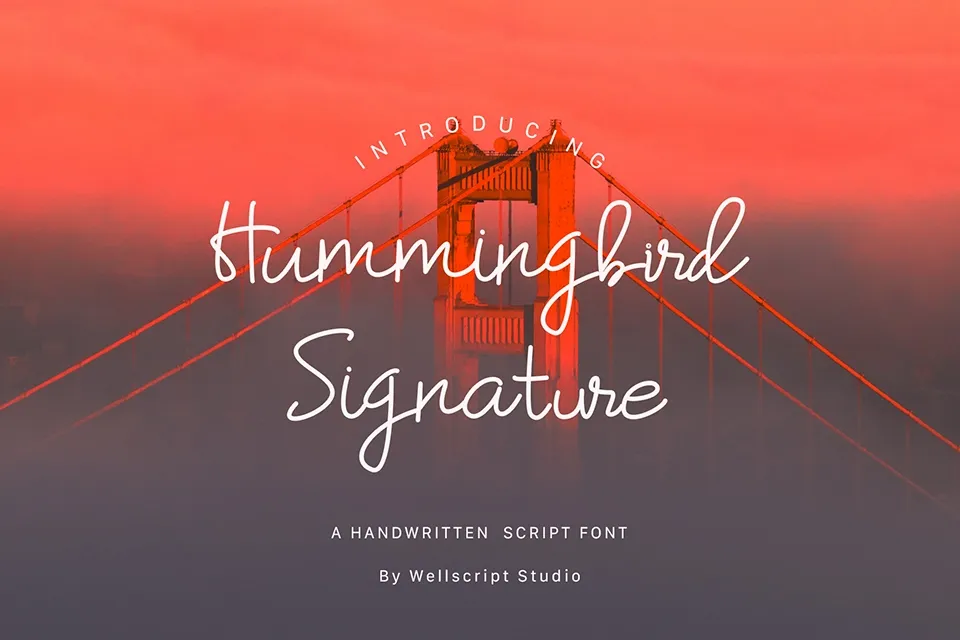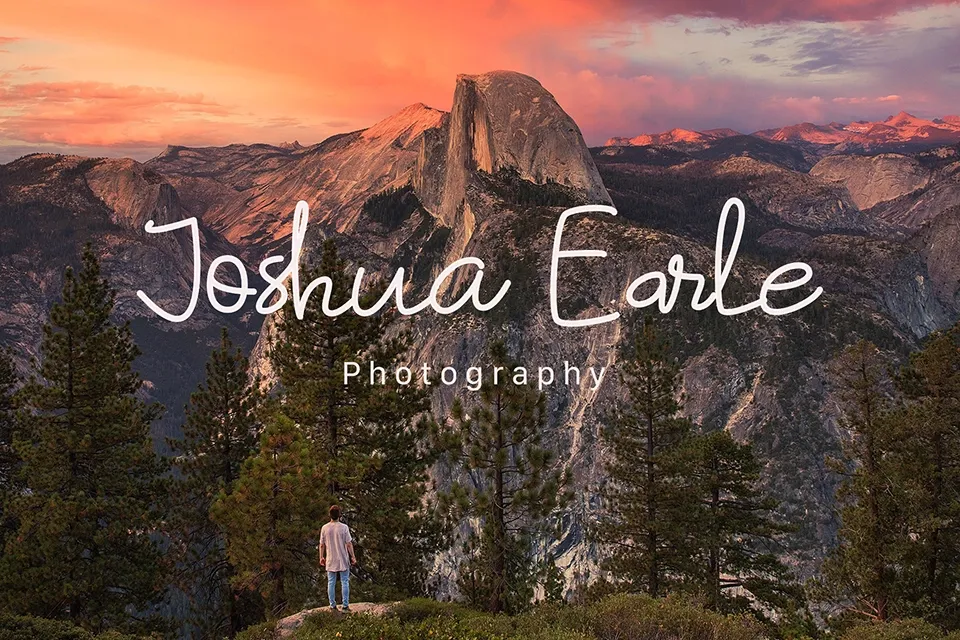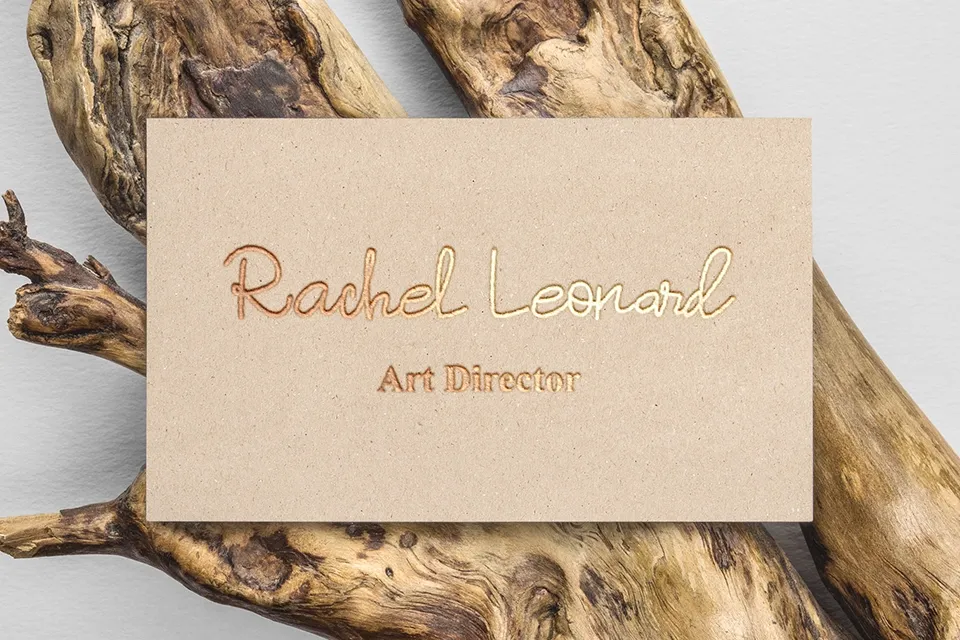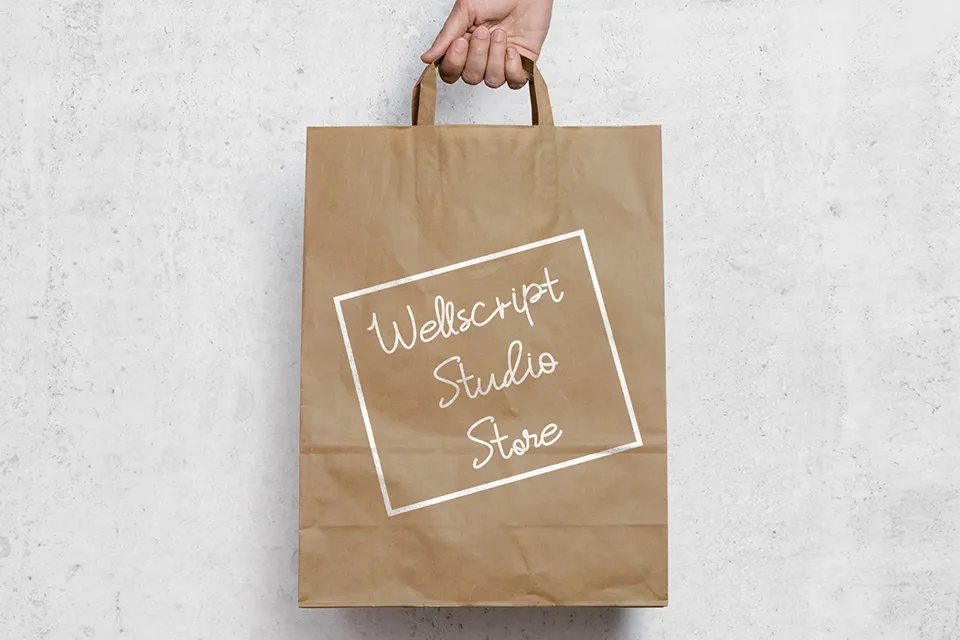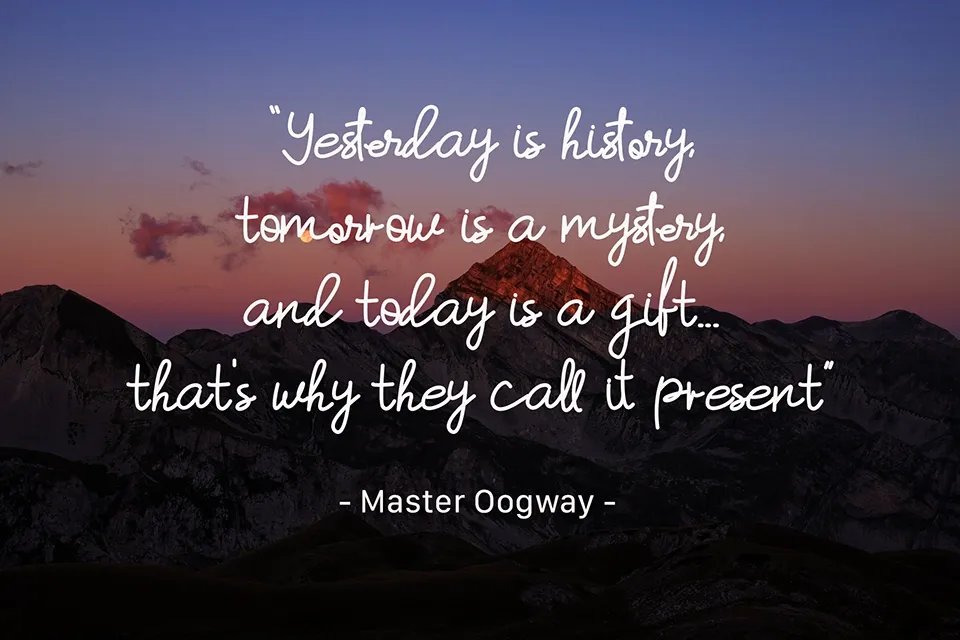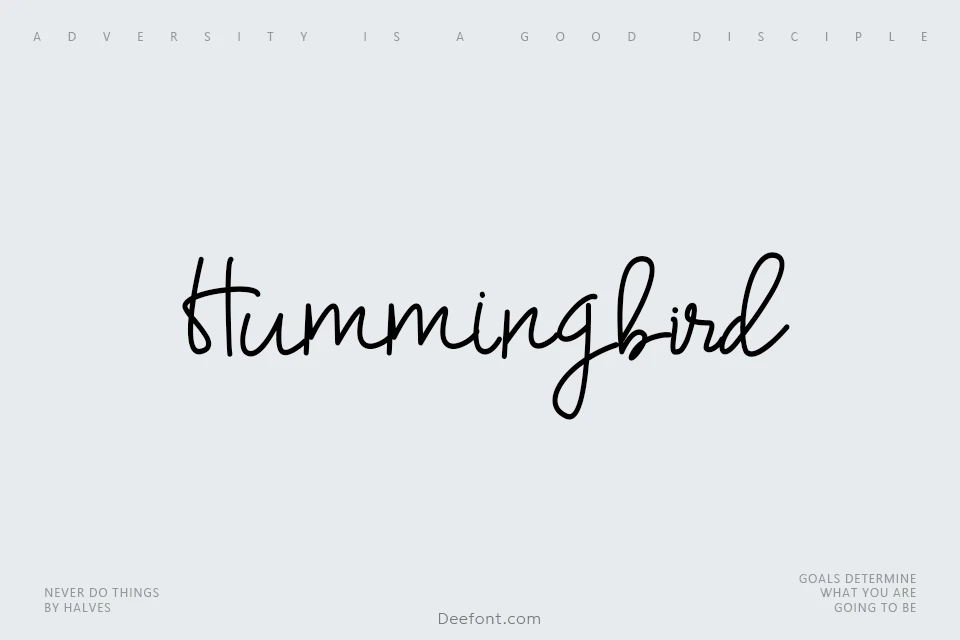
Hummingbird Font
Hummingbird Font is a charming handwritten script typeface that captures the elegance and fluidity of natural handwriting. Its smooth, flowing letterforms and delicate curves make it perfect for personal signatures, wedding invitations, branding, and social media graphics. Designed to evoke a sense of warmth and authenticity, Hummingbird Font adds a personal touch to any project while maintaining excellent readability. The font’s graceful style and modern appeal ensure your text stands out with sophistication and character. Ideal for both digital and print use, Hummingbird Font brings a sense of creativity and individuality to every design.